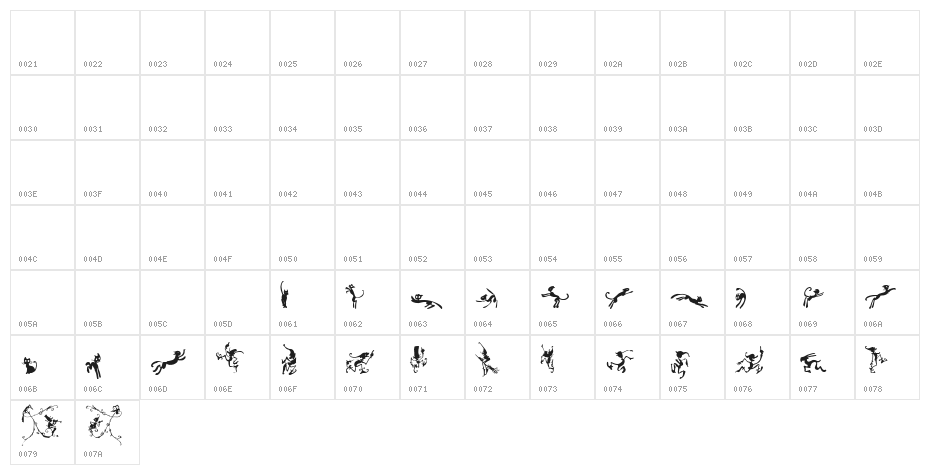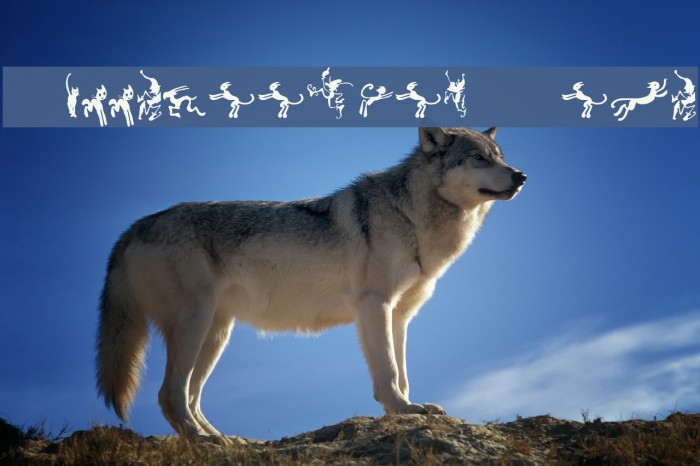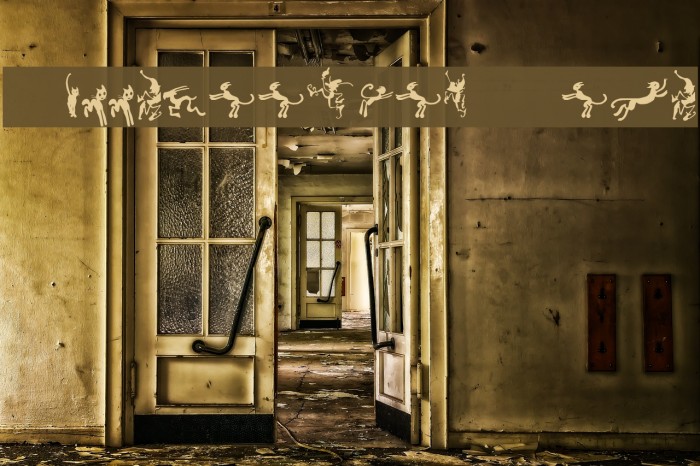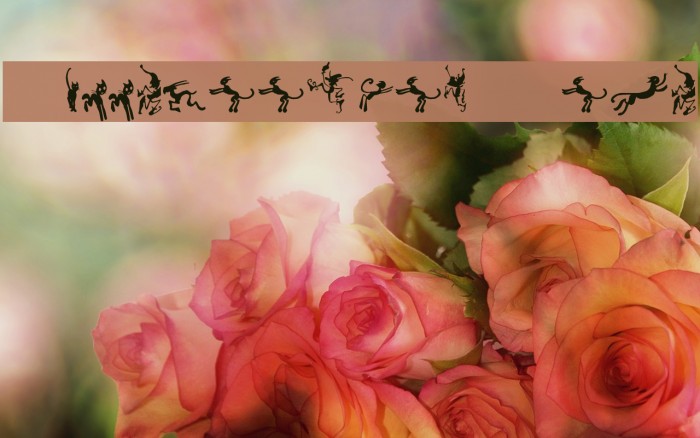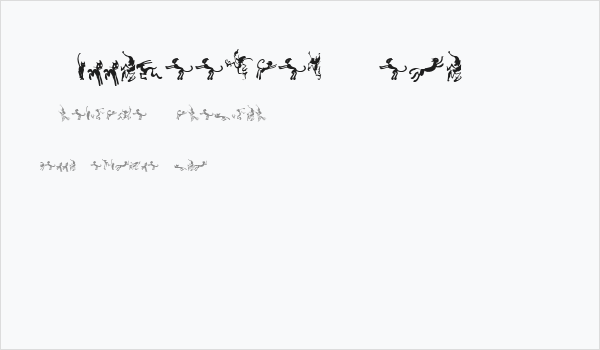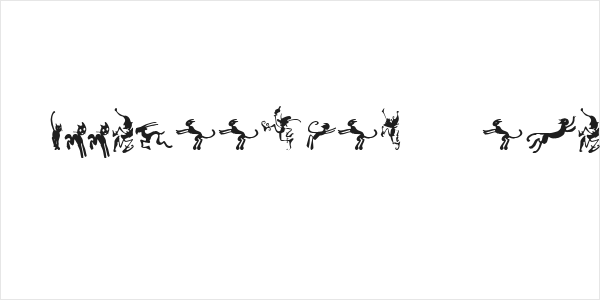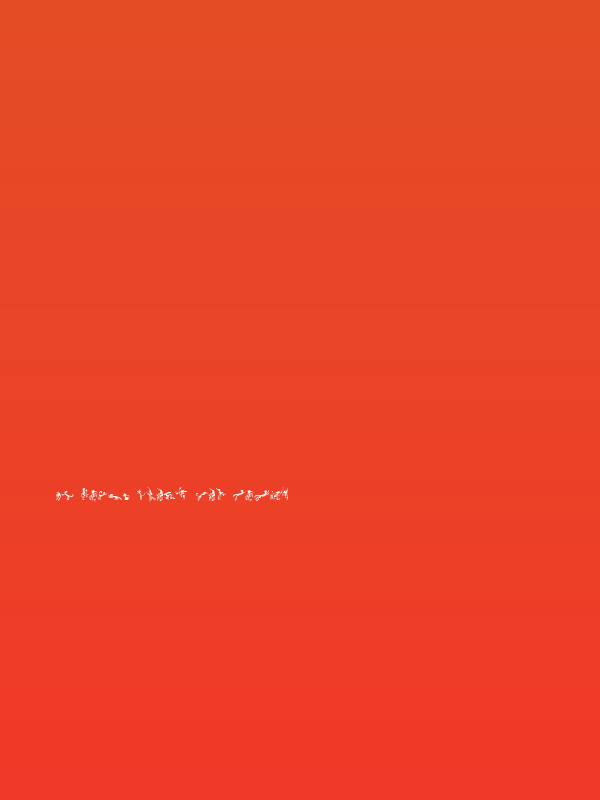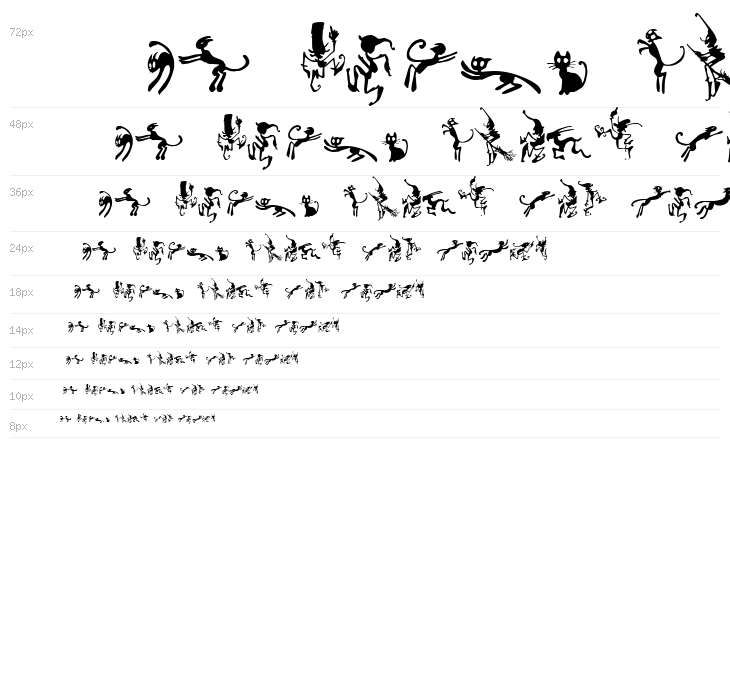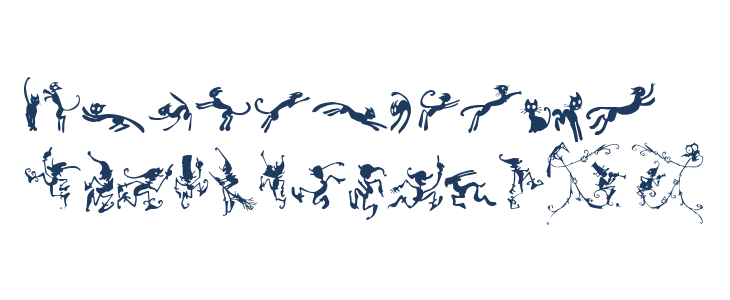
Halloweenies Demo Font
Halloweenies Demo Description
This font is a whimsical and playful collection of Halloween-themed characters, each letter represented by a unique, stylized figure. The characters are creatively designed with elements like witches, cats, and other spooky motifs, giving a lively and festive feel. The font is highly decorative, with each character being a small piece of art, making it more suitable for thematic and decorative purposes rather than traditional text. The intricate details and imaginative designs make it perfect for capturing the spirit of Halloween in a fun and engaging way.
| Proposed Projects | Ideal for Halloween invitations, themed posters, party decorations, and creative projects that require a festive touch. |